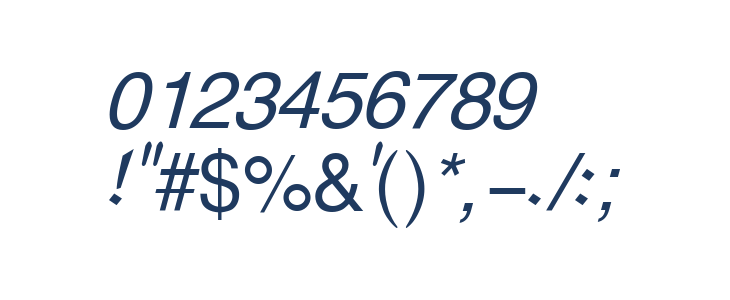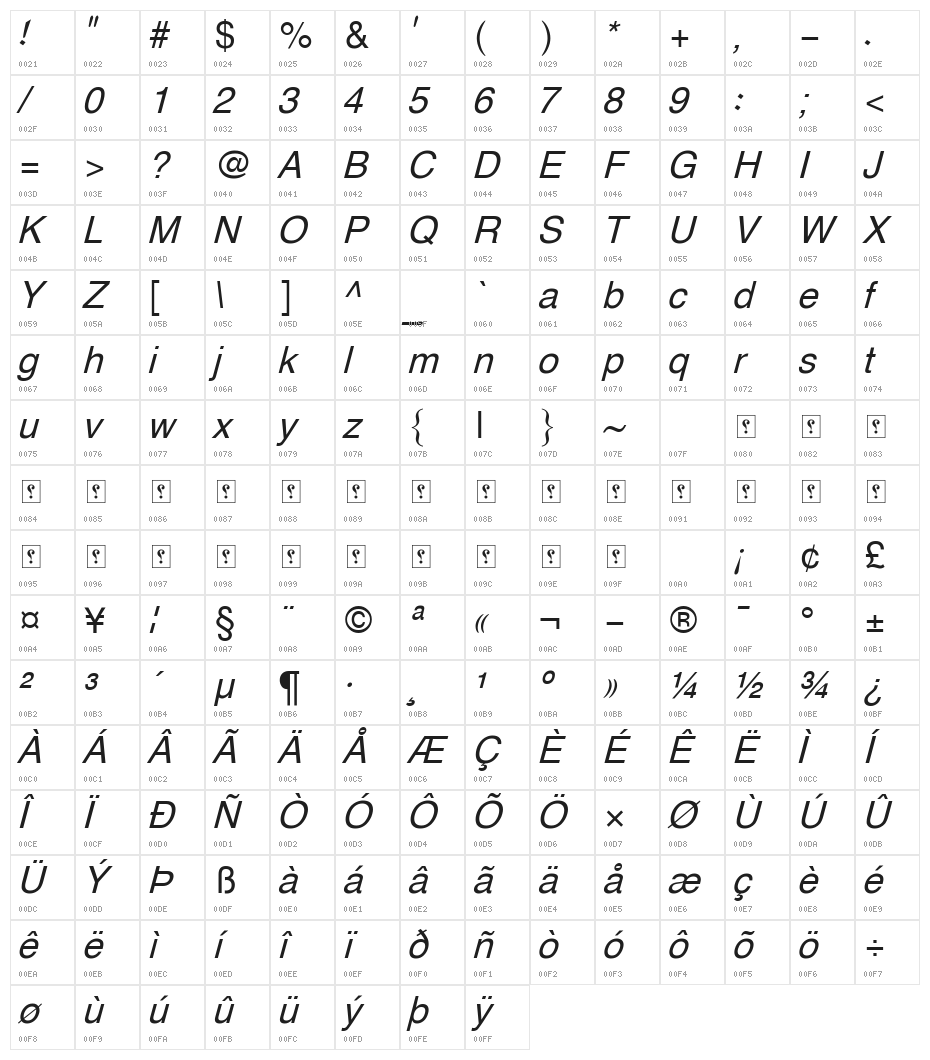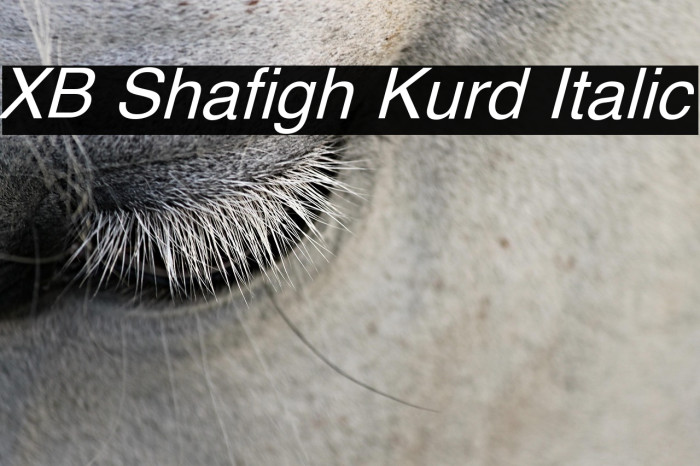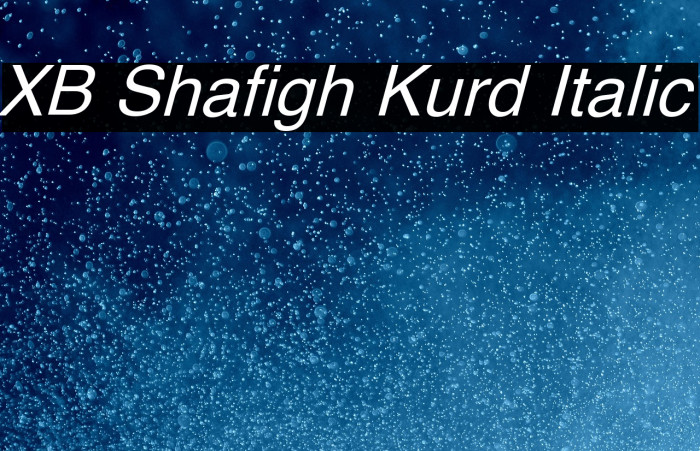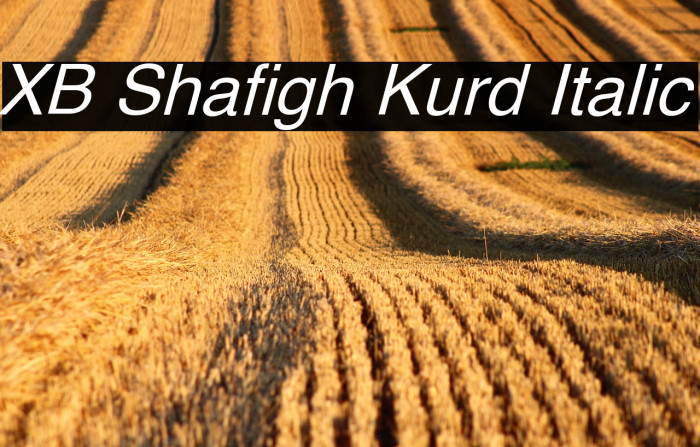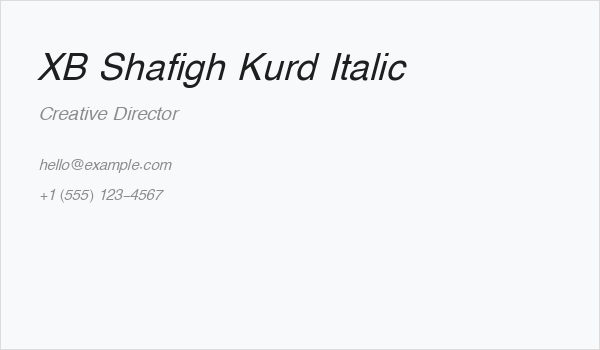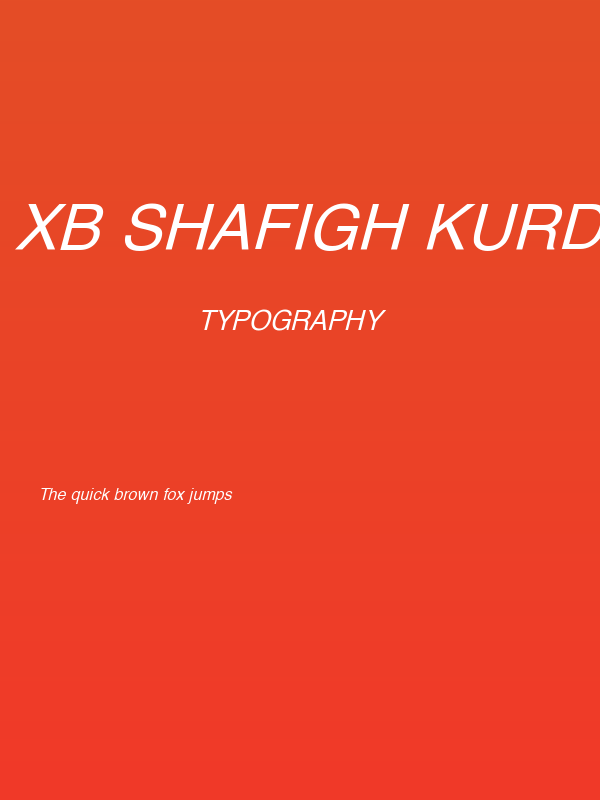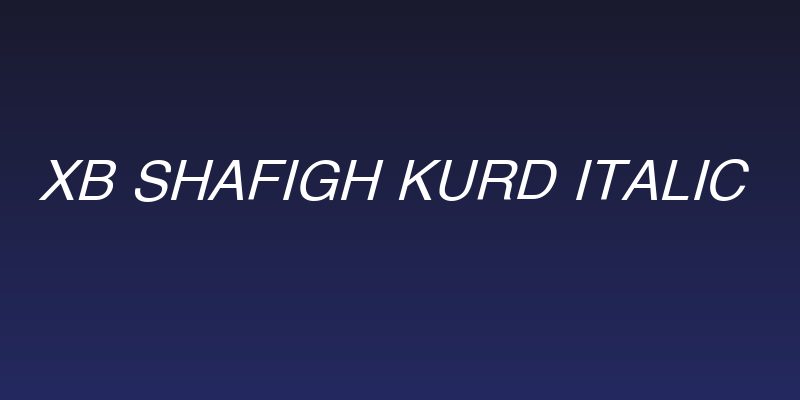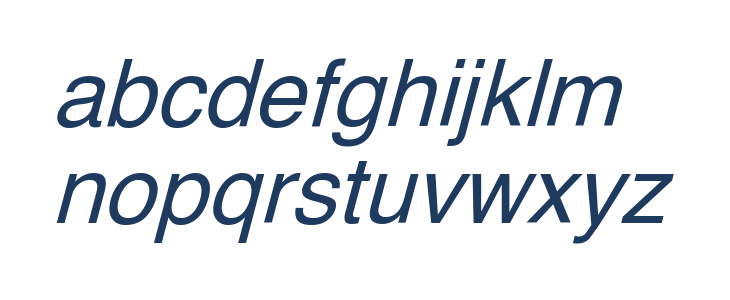
XB Shafigh Kurd Italic Font
XB Shafigh Kurd Italic Description
This font features a sleek and modern italic style, characterized by its smooth curves and slightly slanted letters. The uppercase and lowercase letters maintain a consistent flow, enhancing readability while adding a dynamic touch. The numerals are clear and distinct, complementing the overall design. Special characters are well-integrated, ensuring versatility across various applications. The font's clean lines and balanced proportions make it suitable for both digital and print media, offering a professional yet approachable appearance.